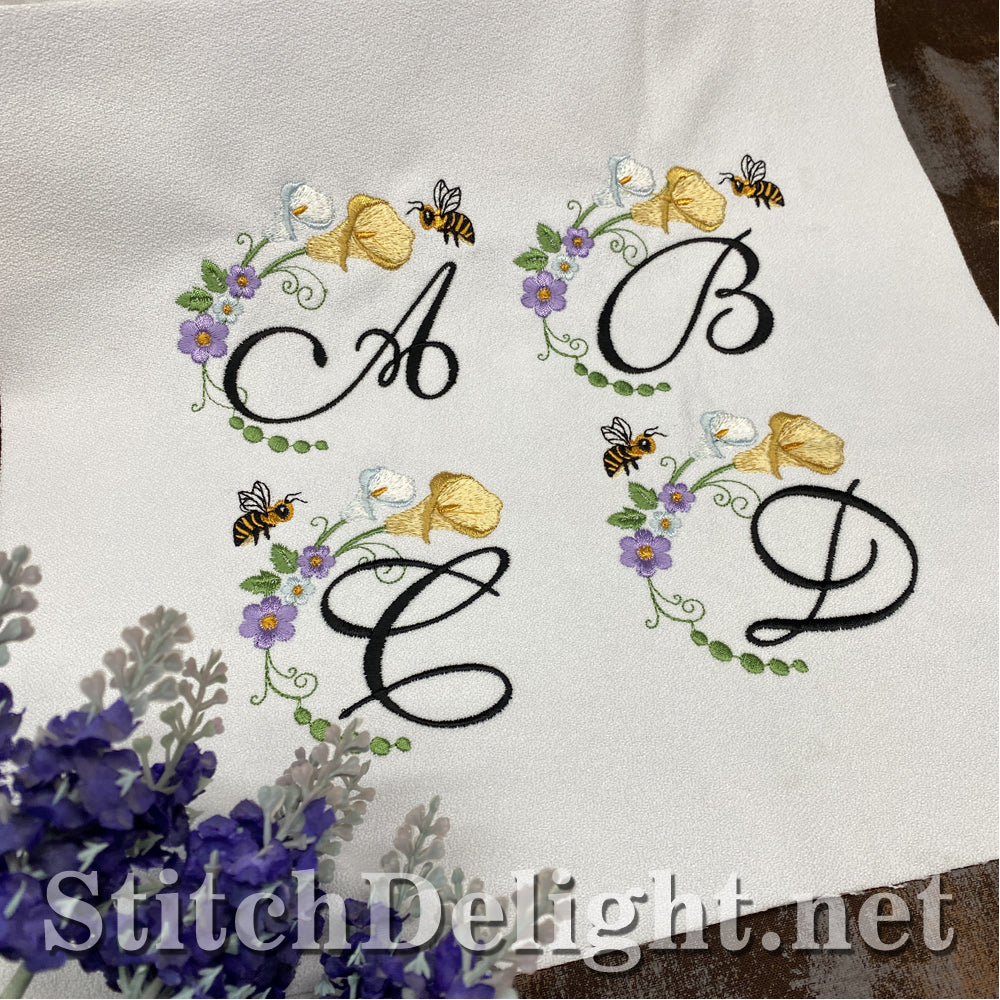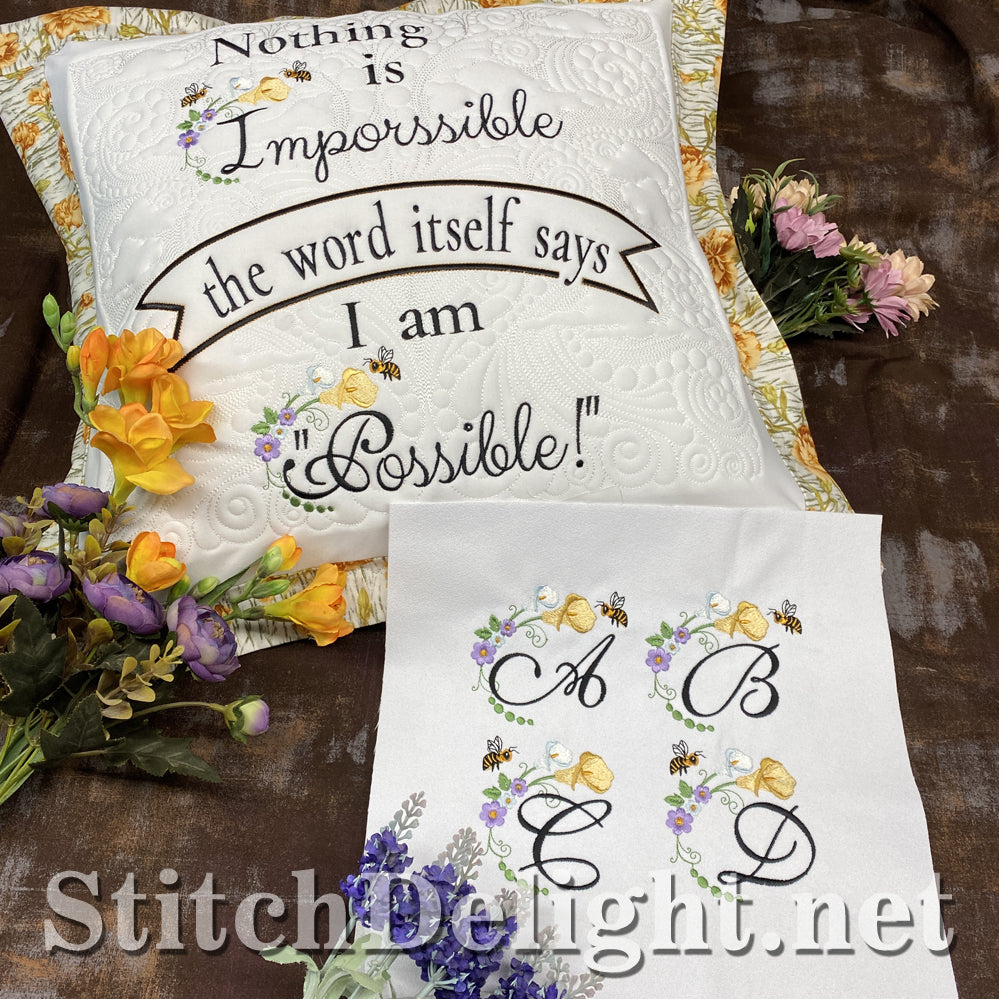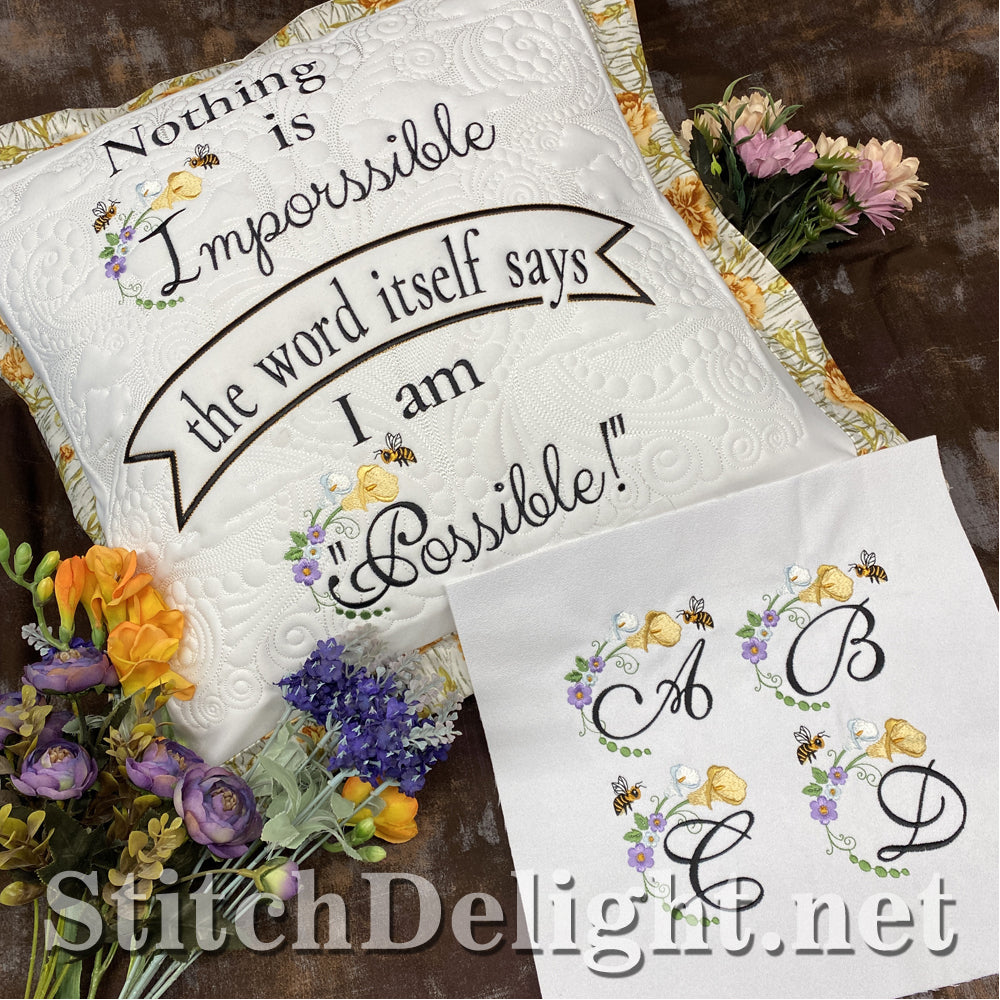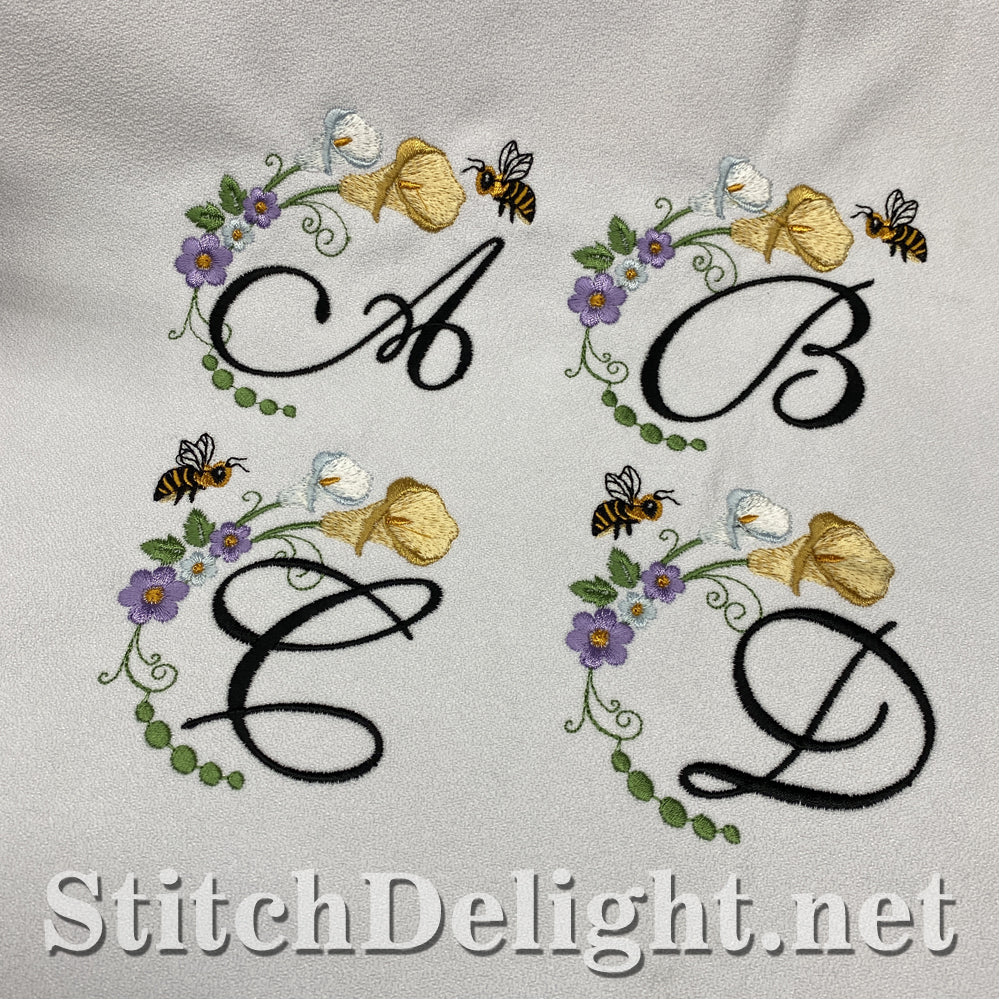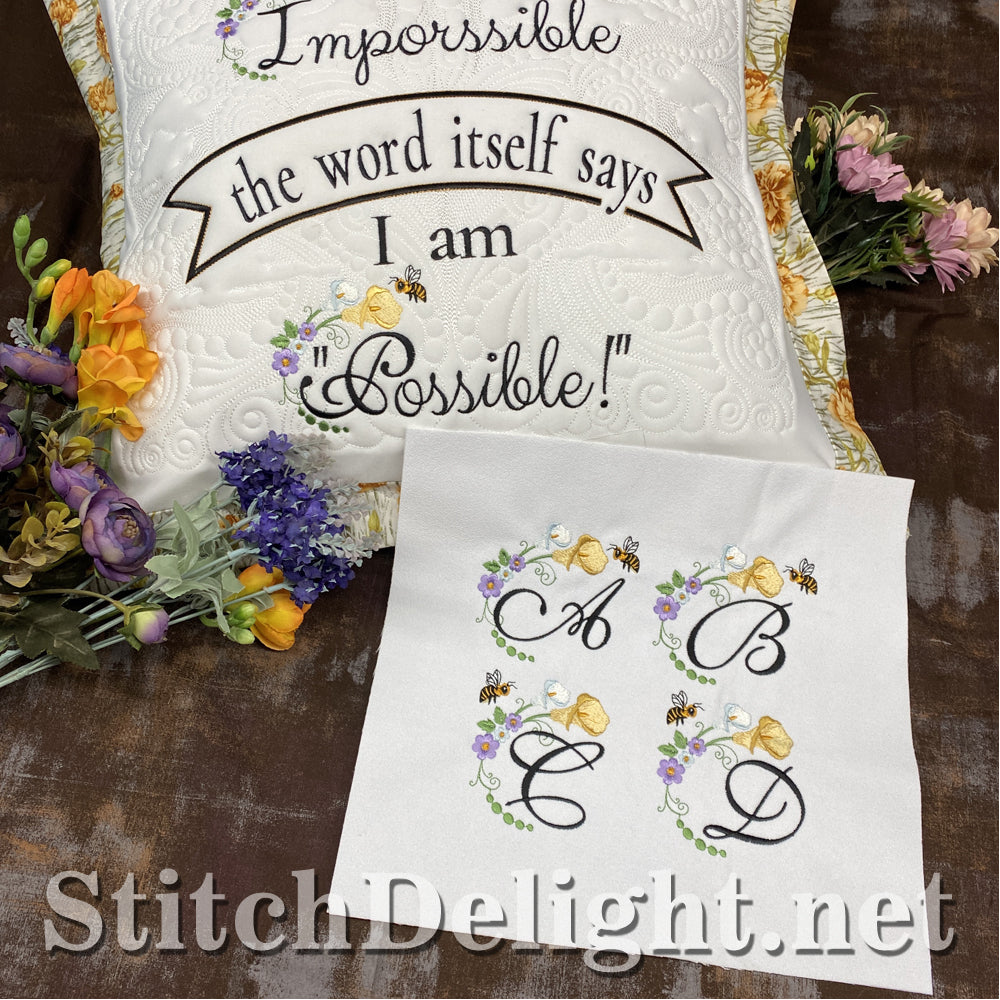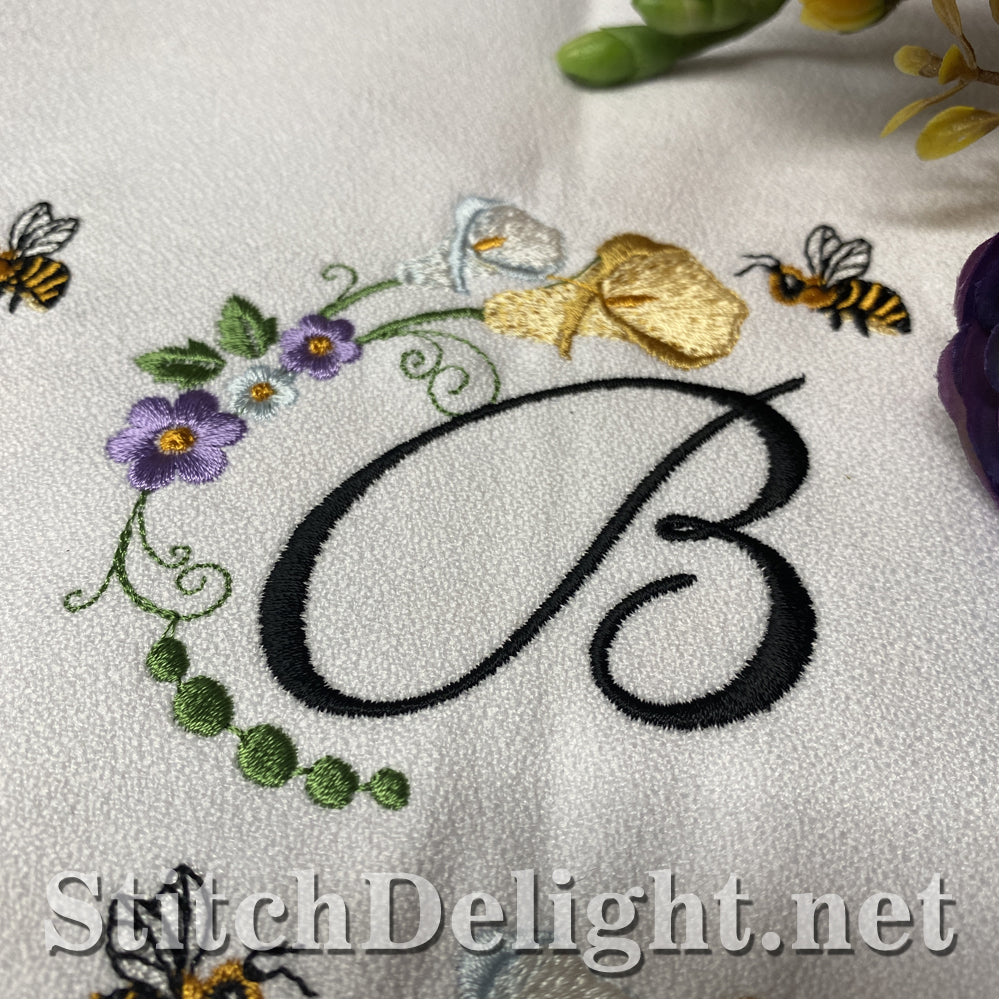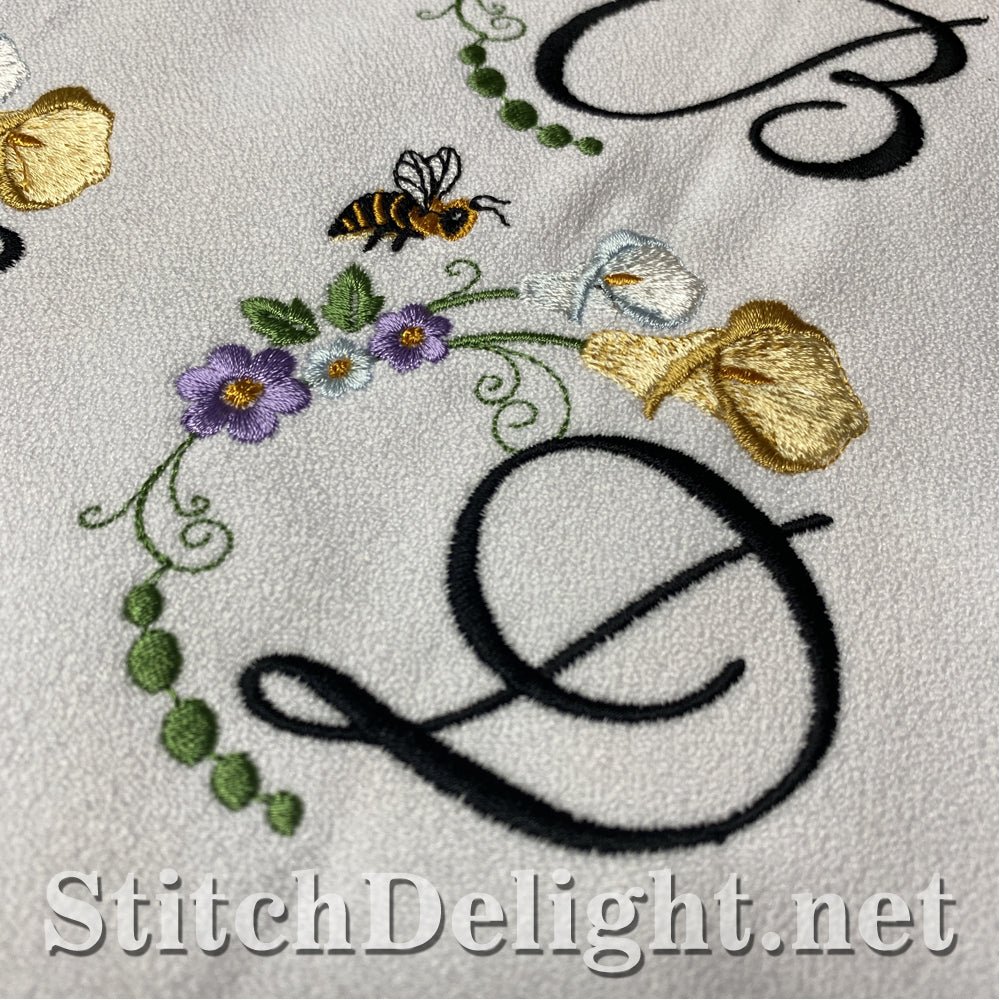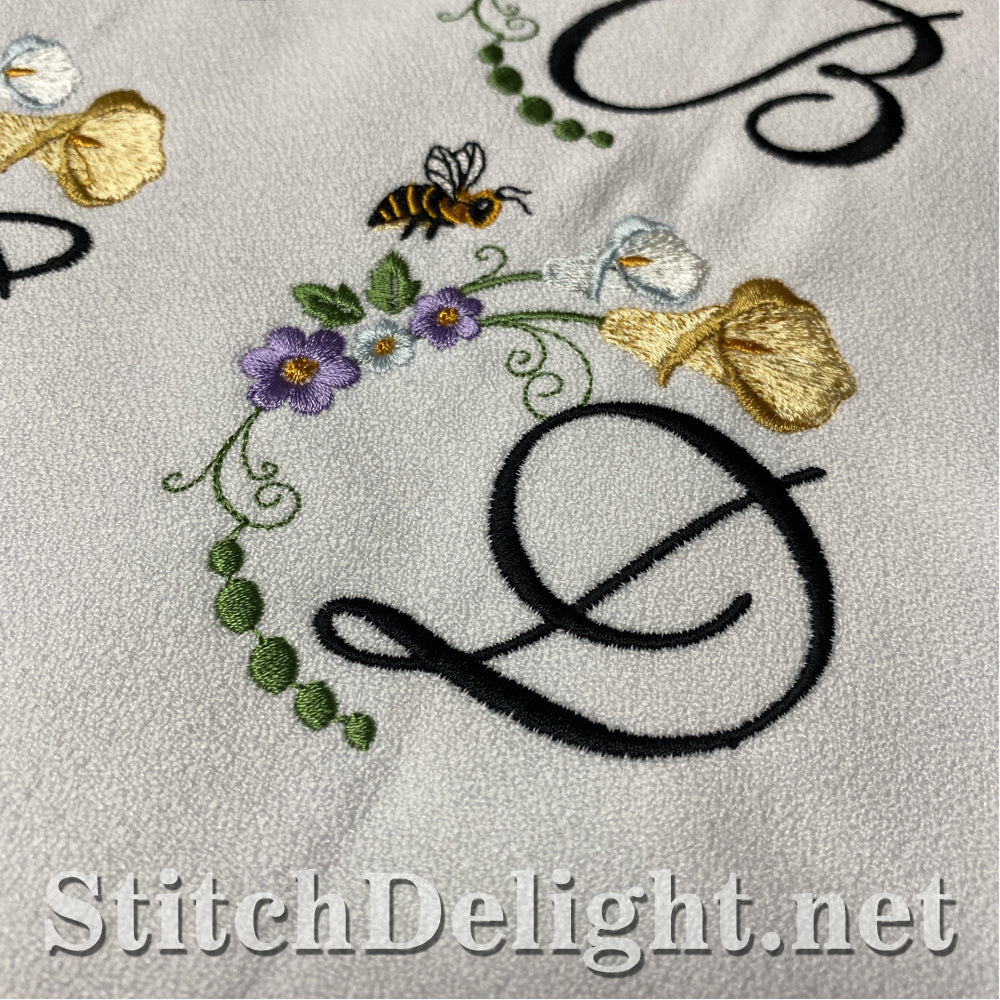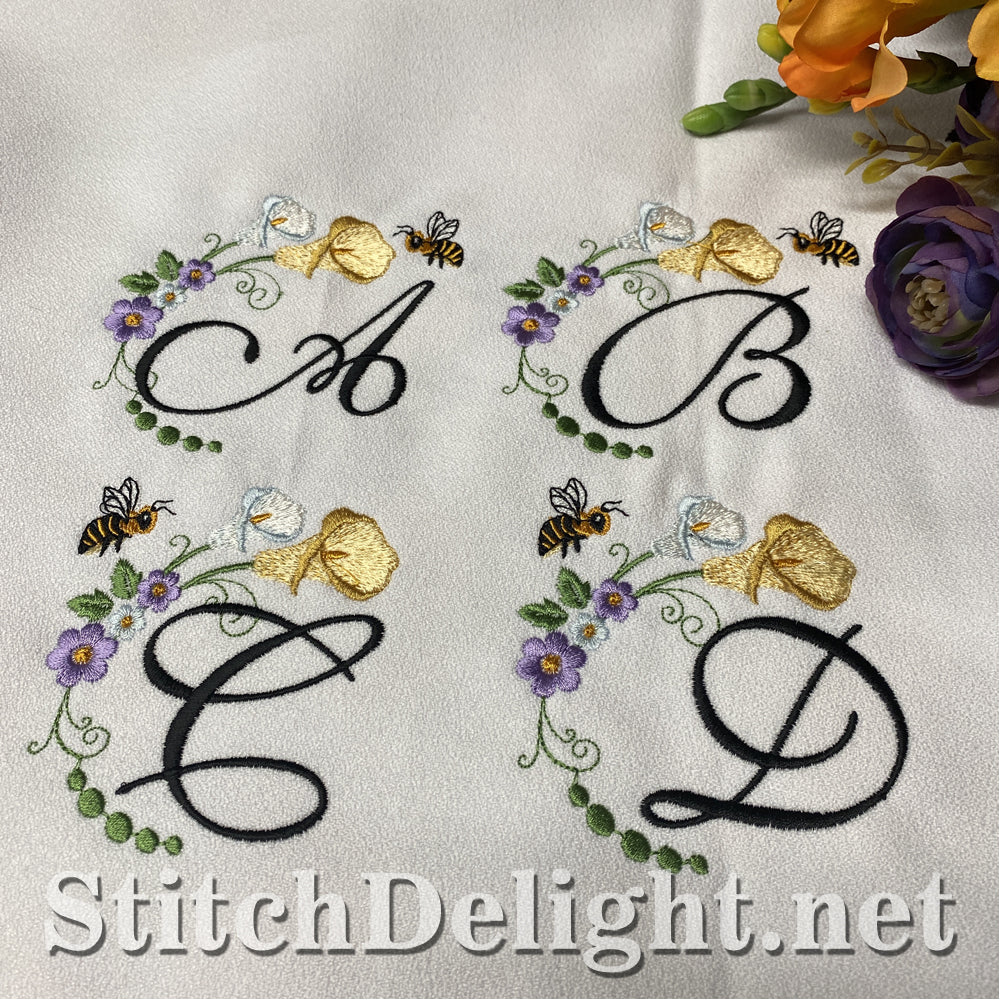
Another beautiful font made by Stitch Delight, made for the 4x4 hoop this font is perfect for Guest Houses wanting to stitch out their name on the linen, pillow covers!